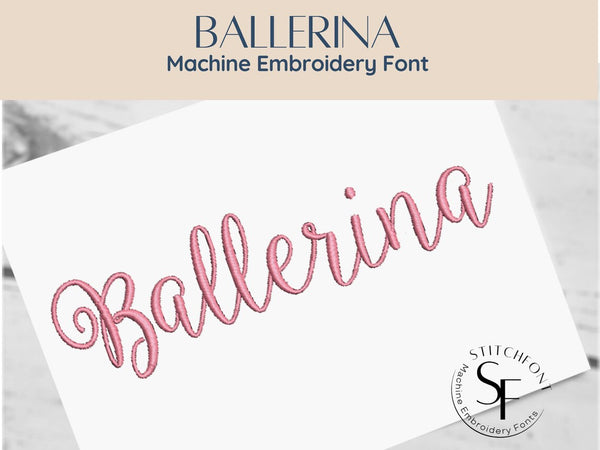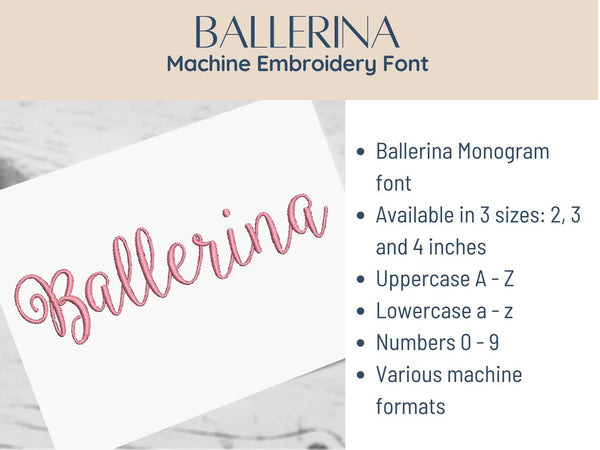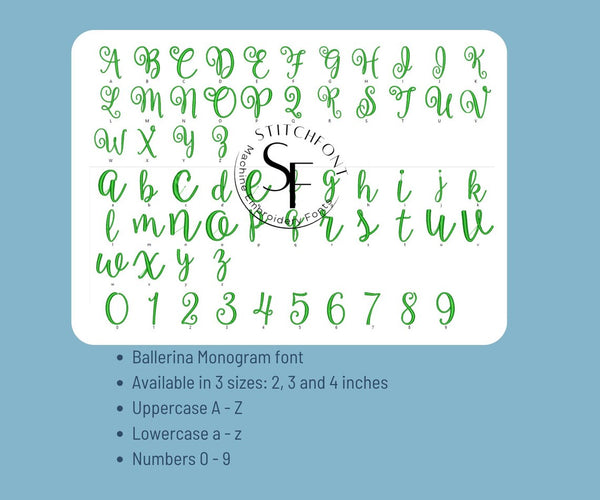
Ballerina Embroidery Font – Satin Stitch
Add a graceful touch to your embroidery projects with the Ballerina Font – a delicate and flowing satin stitch font perfect for names, quotes, and personalized gifts. This elegant script features smooth curves and a beautiful handwritten style that stitches out beautifully on everything from baby clothes to ballet bags.
* Satin stitch embroidery font
* Uppercase A–Z
* Lowercase a–z
* Numbers 0–9